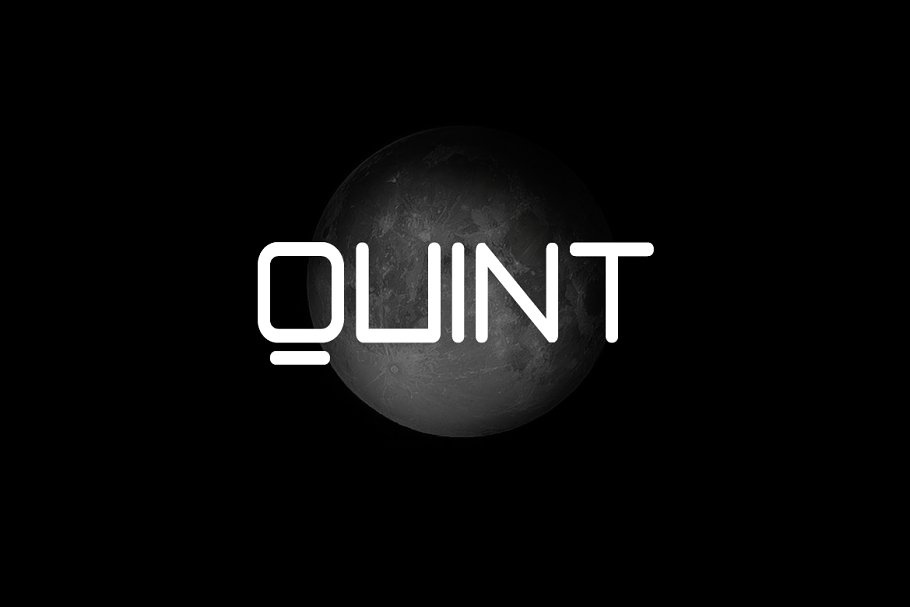
Quint Font
Quint Font is perfect for quintessential luxury brands, essential design studios, fundamental architecture firms, core business consulting, primary educational institutions, and foundational professional services. Its essential character makes it ideal for five-star hospitality venues, quintuple premium services, essential quality certifications, fundamental engineering companies, primary research institutions, and any project requiring foundational excellence with quintessential quality and essential sophistication appeal.
This font is exciting because it embodies the pure essence and quintessential qualities that define excellence while delivering exceptional functionality for organizations representing the fundamental principles of quality, sophistication, and essential professional standards. The perfectly crafted letterforms represent the distillation of typographic excellence down to its most essential elements, creating typography that feels both fundamentally sound and quintessentially refined.
The Quint Font family typically includes Light, Regular, Medium, and Bold weights with essential alternates, fundamental ligatures, and quintessential elements that enhance its foundational personality. This comprehensive collection enables essential professionals to create authoritative brand systems that maintain fundamental credibility while offering flexibility for various core applications requiring both essential authority and contemporary quintessential market positioning.
Whether you're developing identity systems for fundamental service providers, creating materials for essential quality organizations, or designing promotional content for quintessential luxury brands, Quint Font Free Download delivers the foundational excellence and quintessential appeal that resonates with audiences seeking essential quality and fundamental professional standards. Its refined presence ensures distinguished brand recognition across digital platforms and print materials, making it perfect for websites, mobile applications, and essential campaigns that celebrate fundamental excellence, quintessential quality, and the transformative power of essential professional standards with contemporary sophistication and authentic foundational integrity.